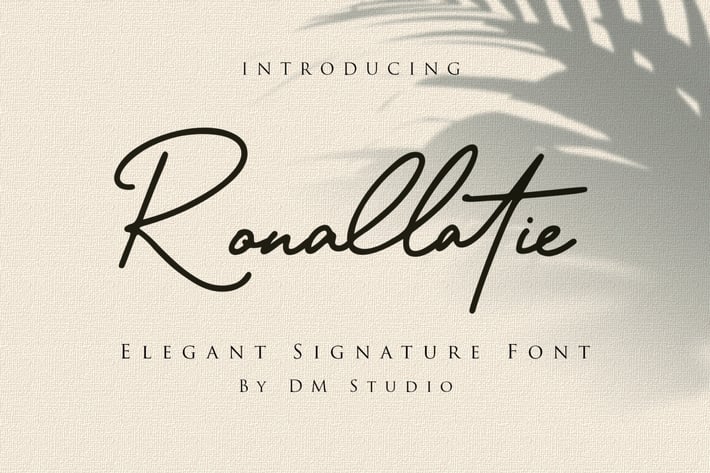
Ronallatie - Elegant Signature Font
Introducing, our new signature font series : Ronallatie !
It's a monoline style, elegant, classy, modern and natural like handwritten font. Great for any design, for business promotion stuffs, beautify your website, magazine, make your own digital signature, photo caption, social media post, and much more!
Comes with extra ligatures and lowercase alternative, to make your design more stylish and gorgeous.
- Numerals
- Symbols
- Multilingual
- Lowercase Alternates